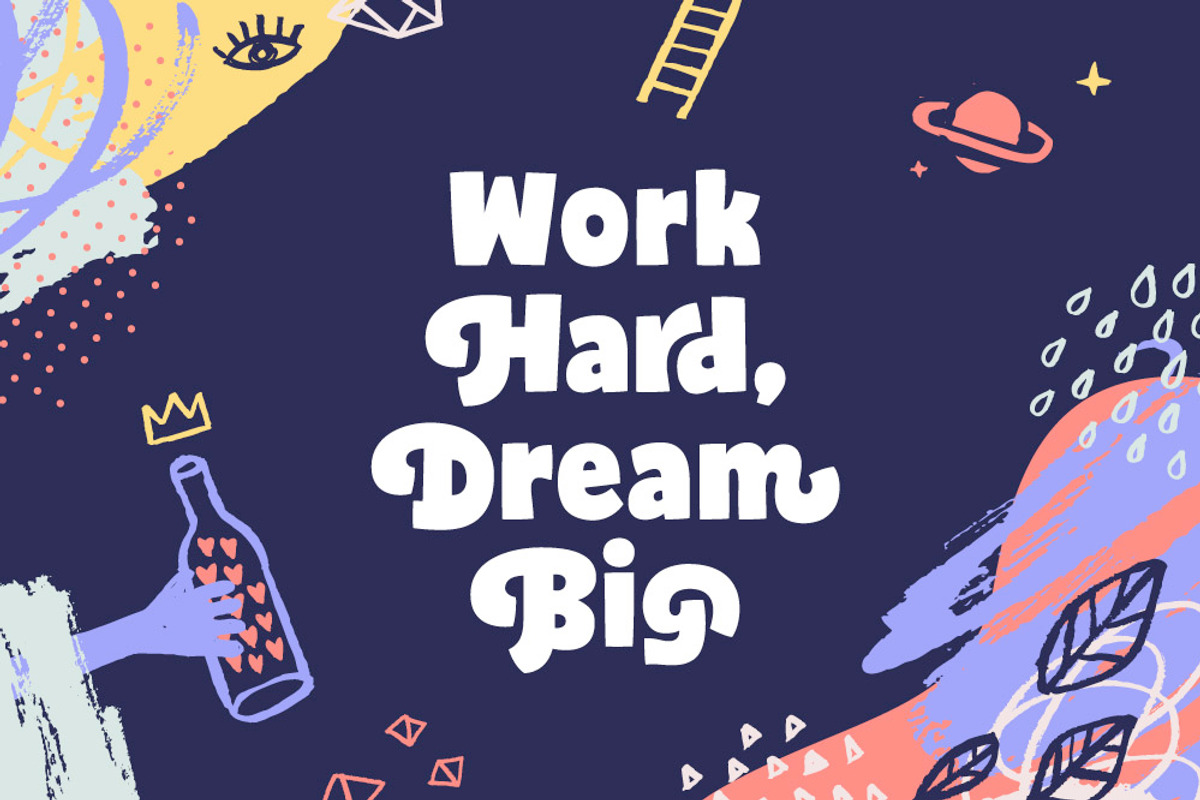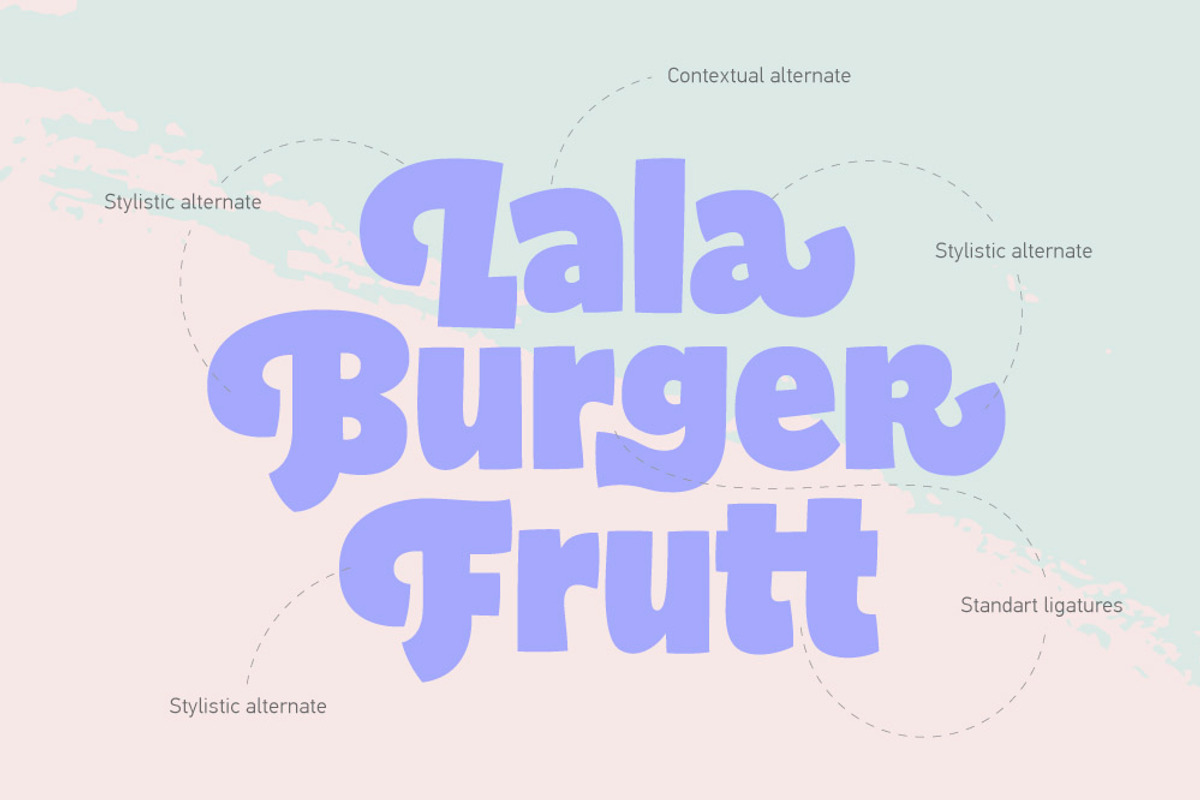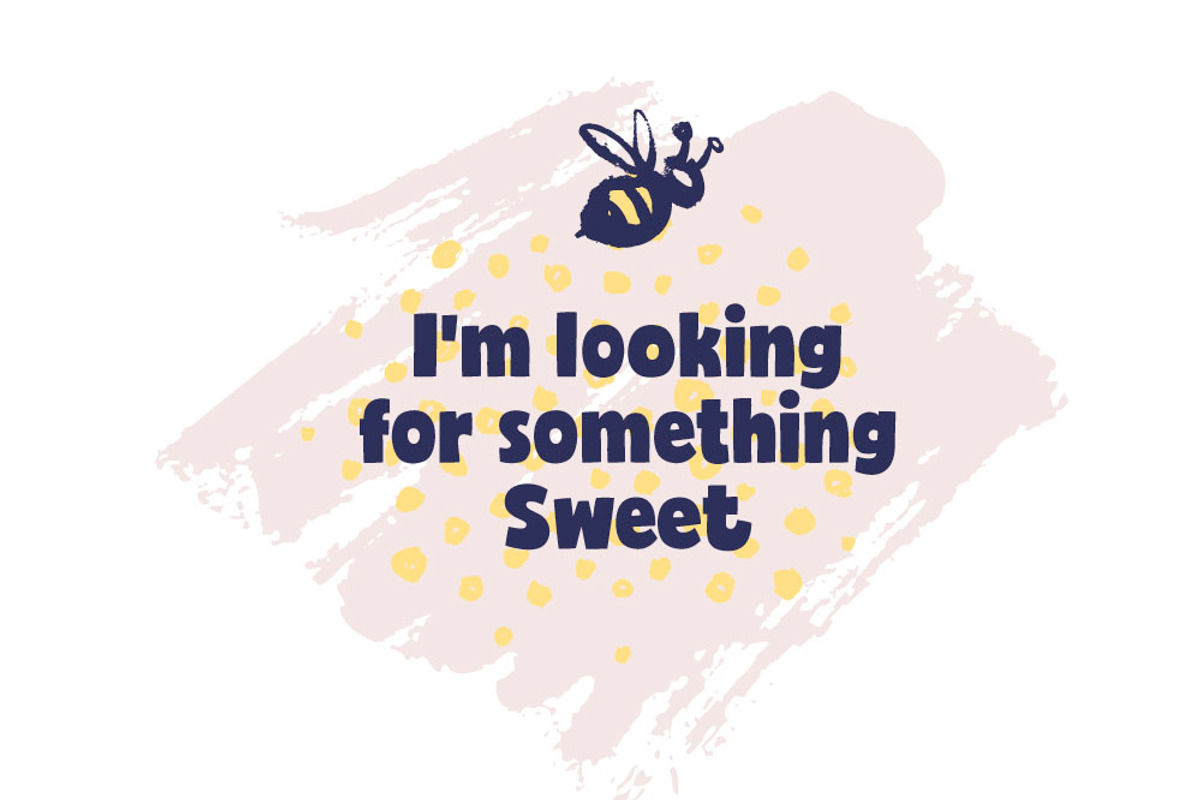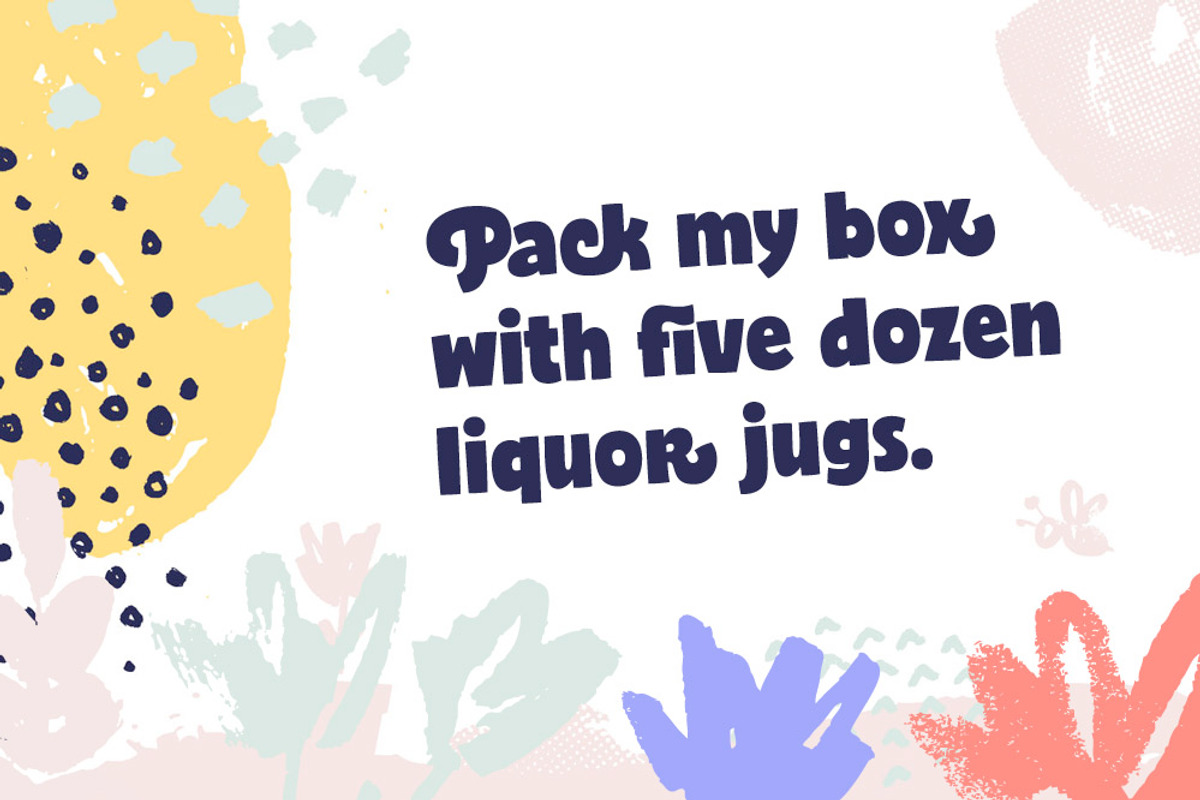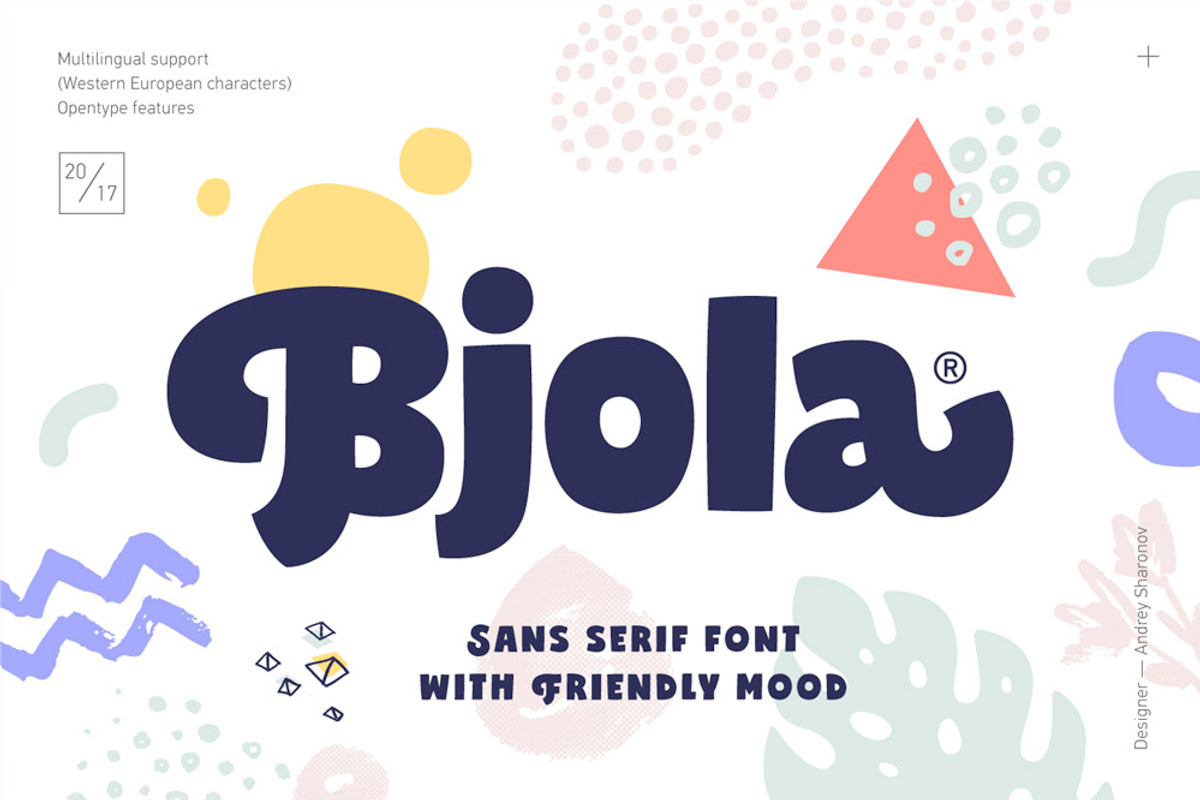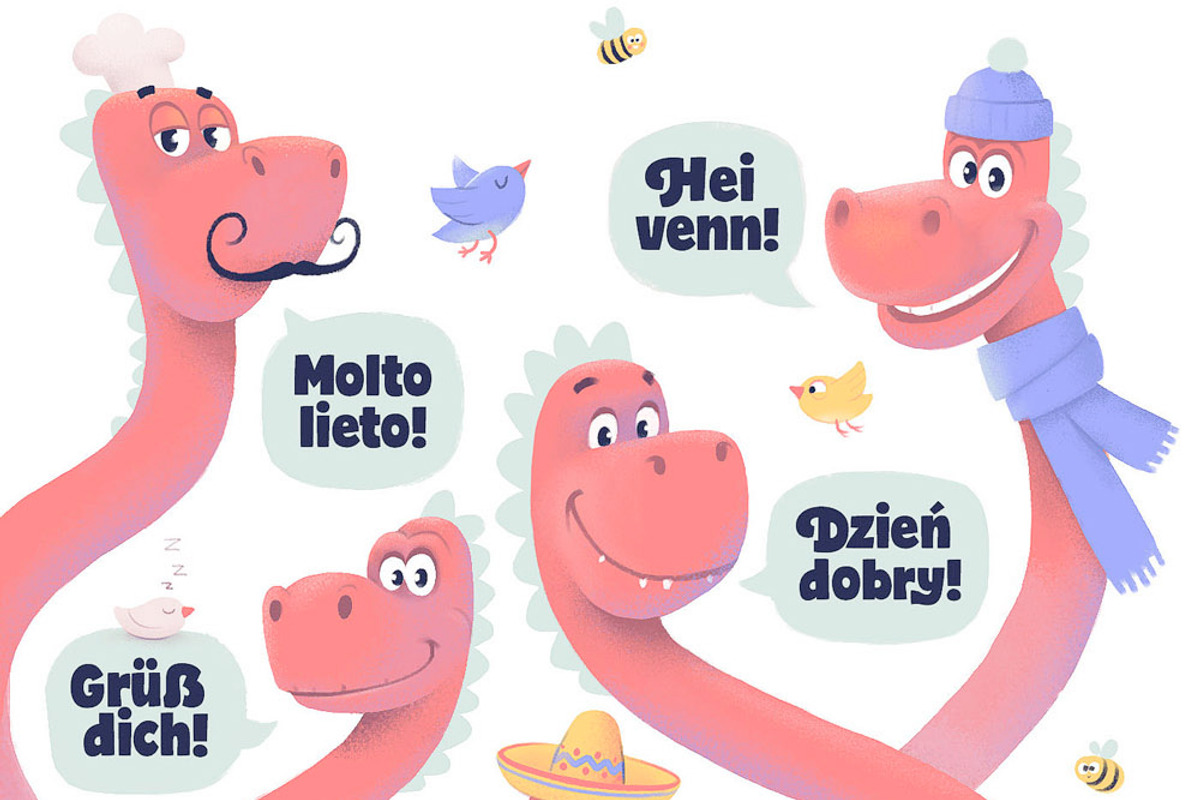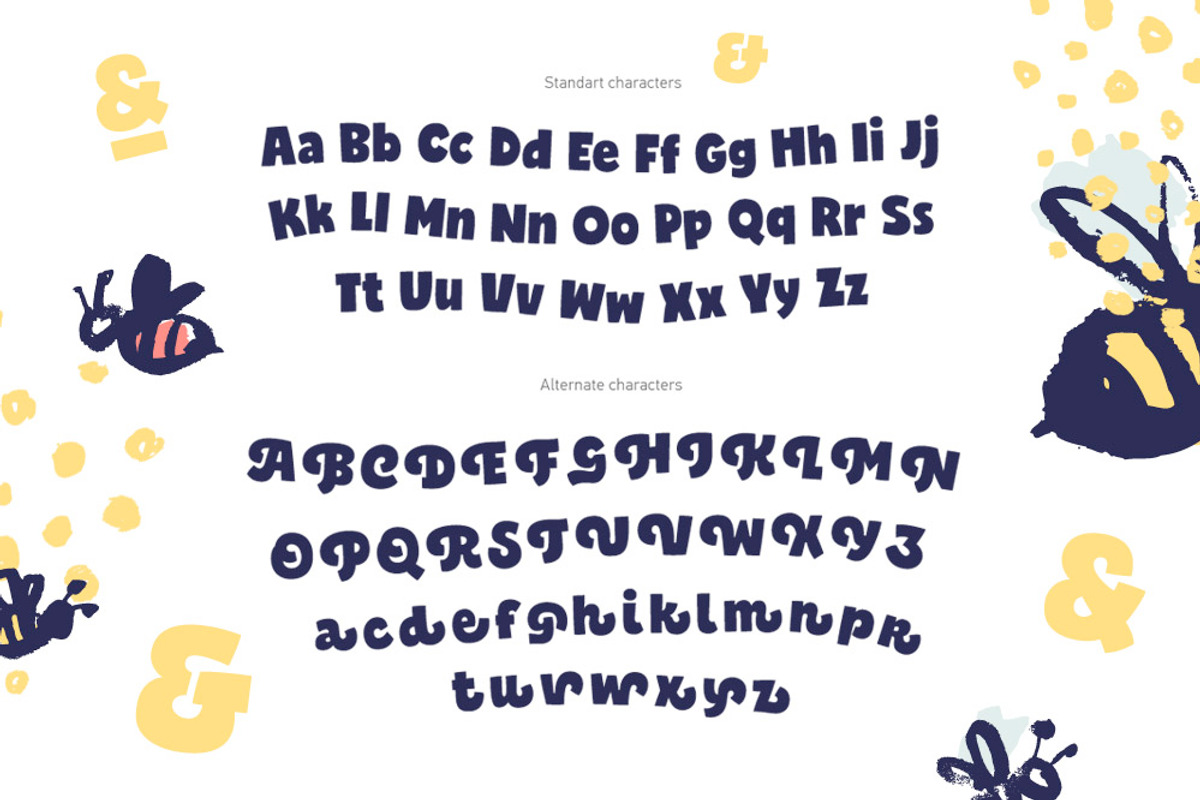
Bjola Sans Serif
Bjola is a bold, friendly typeface designed to bring a playful, slightly childlike feel to any design. Its chubby, clean letterforms are simple yet modern, making it ideal for children's books, humorous greeting cards, food packaging, logos, and other projects that use cartoon-style or abstract graphics. However, its potential applications go far beyond that. I've created a few design examples to show how it performs in different contexts.
- Uppercase, lowercase, numbers, punctuations;
- Opentype features (Stylistic and Contextual alternates, Standart and Discretionary ligatures)
Multilingual support (Western European characters).
Languages: Danish, Dutch, English, Estonian, Faroese, Finnish, French, German, Hungarian, Icelandic, Italian, Norwegian, Polish, Portuguese, Slovene, Spanish, Swedish, Turkish.